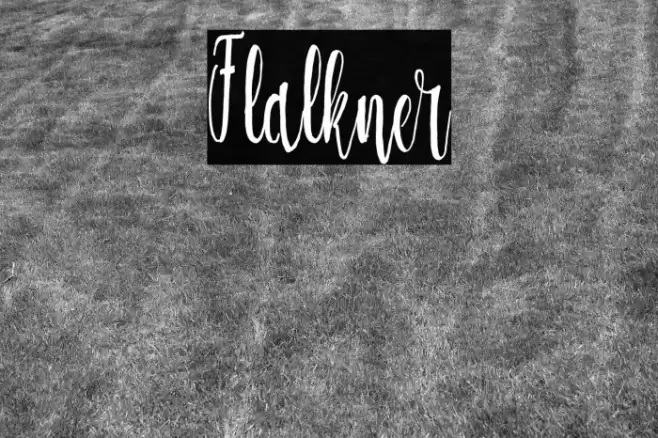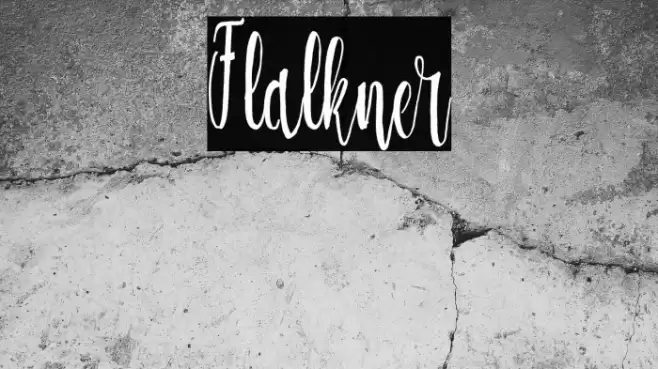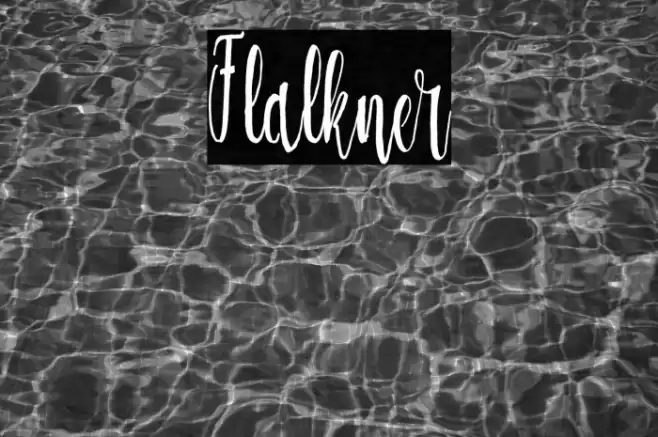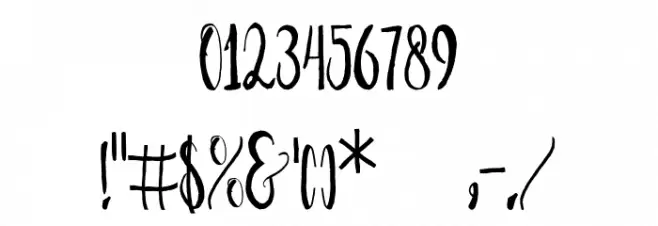
Flalkner Font
Flalkner Description
This font features a dynamic and expressive handwritten style with a playful and artistic flair. The uppercase letters are tall and slender, with a slight slant that adds a sense of movement and energy. The lowercase letters maintain a consistent flow, with loops and curves that enhance the handwritten aesthetic. Numbers are bold and clear, ensuring readability. Special characters are creatively designed, complementing the overall style. This font exudes a sense of creativity and individuality, making it ideal for projects that require a personal touch.
A dynamic and expressive handwritten font with artistic flair from Uncategorized fonts.
- Proposed Projects: Ideal for greeting cards, invitations, personal branding, and creative projects that require a unique and personal touch.
- Use Case: Logos, Invitations, Creative projects